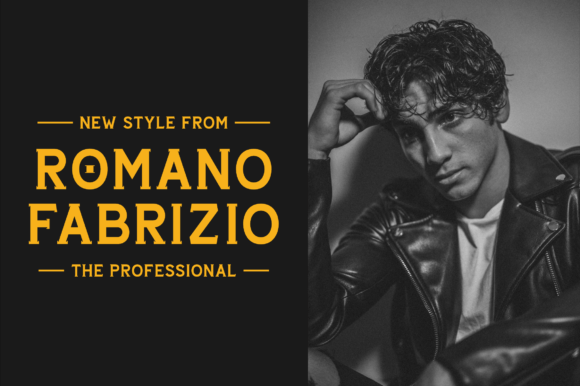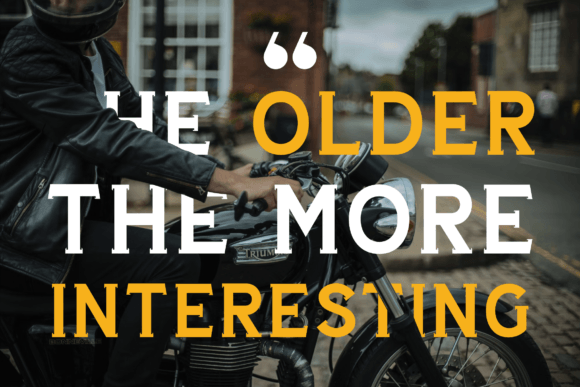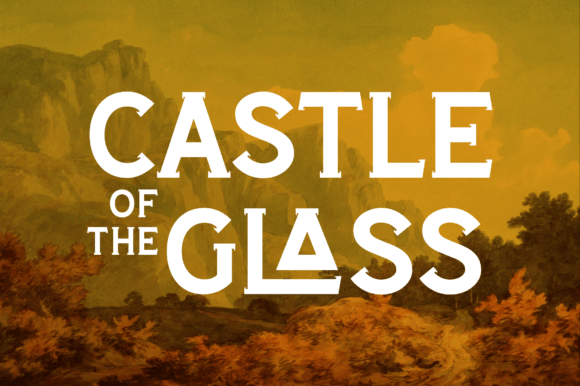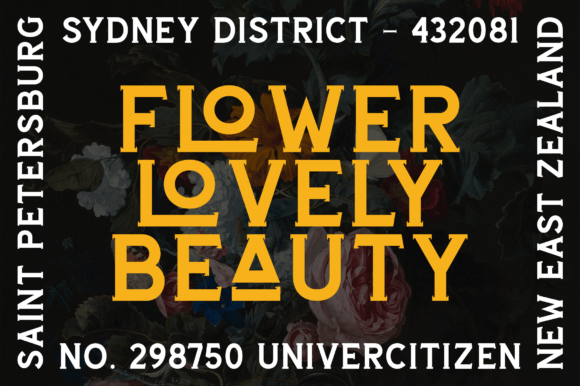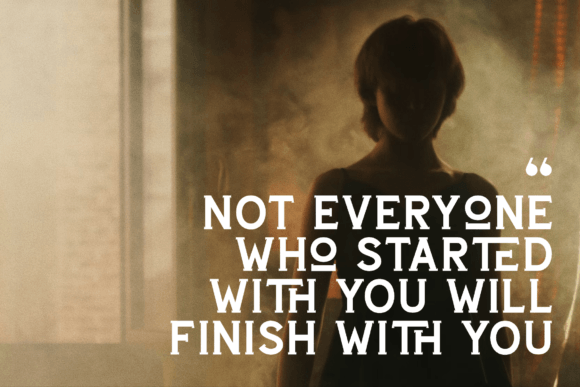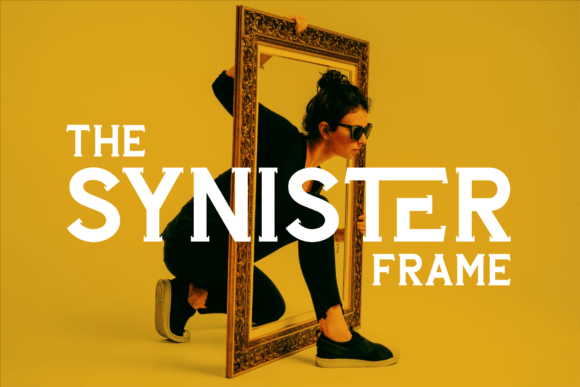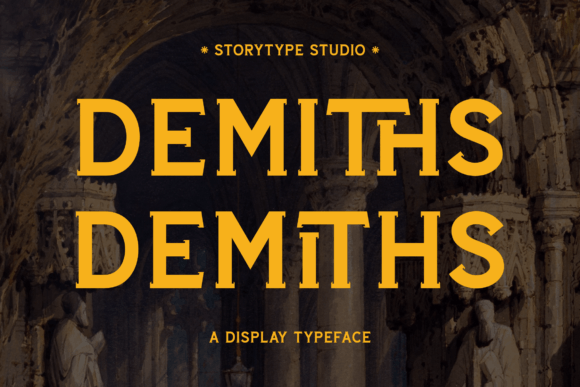
Introducing Demiths Font: The Epitome of Elegance and Sophistication
In the realm of typography, a font can make or break the visual identity of a brand, product, or creative project. For those seeking a typeface that exudes elegance, luxury, and timeless sophistication, look no further than Demiths Font. This modern and classic serif font boasts a unique style that is sure to elevate any design, from logos and titles to fashion branding, magazines, and beyond.
The Characteristics of Demiths Font
Demiths Font is distinguished by its classic serif design, which lends an air of tradition and refinement to any project. Its modern twist, however, ensures that it remains fresh and relevant in today’s fast-paced design landscape. The font’s unique style is characterized by:
• Classic Serif Structure: Demiths features a traditional serif design, complete with subtle flair and finesse, making it perfect for projects that demand a touch of sophistication.
• Modern Sensibility: Despite its classic roots, Demiths boasts a modern sensibility that ensures it will stand out in a crowded design landscape.
• Unique Style: What sets Demiths apart is its singular style, which manages to be both elegant and distinctive, making it an excellent choice for those looking to create a lasting impression.
Applications of Demiths Font
The versatility of Demiths Font is one of its most compelling attributes. Its elegant and luxurious feel makes it suitable for a wide range of applications, including:
• Elegant Logos: Create a lasting impression with a logo that embodies sophistication and class. Demiths Font is perfect for luxury brands, high-end services, or any business aiming to convey a sense of premium quality.
• Book or Movie Title Design: Add a touch of glamour to your book or movie titles with Demiths. Its classic yet modern appeal ensures that your title will stand out on bookstands and movie screens.
• Fashion Brand: For fashion brands, Demiths offers a typographic solution that is both stylish and luxurious. Use it for branding, packaging, or advertising to convey a high-end aesthetic.
• Magazine and Editorial Design: Elevate your magazine or editorial content with Demiths. Its readability and elegance make it an excellent choice for article titles, headers, and quotes.
• Clothes and Apparel: From luxury clothing lines to bespoke accessories, Demiths can add a touch of sophistication to any apparel branding or packaging.
• Lettering and Quotes: For designers and crafters looking to create stunning lettering or typographic quotes, Demiths provides a beautiful foundation. Its unique style ensures that your work will be both visually striking and memorable.
Why Choose Demiths Font?
In a world where typography plays a crucial role in design, choosing the right font can be daunting. Here are a few reasons why Demiths stands out:
• Versatility: Its wide range of applications makes Demiths a valuable addition to any designer’s toolkit.
• Elegance: For projects that demand a touch of luxury and sophistication, Demiths delivers.
• Uniqueness: In a sea of fonts, Demiths’ singular style ensures that your design will stand out.
Demiths Font is more than just a typeface; it’s a design statement. Its blend of classic elegance and modern sophistication makes it an invaluable resource for designers and crafters looking to imbue their projects with a sense of luxury and refinement. Whether you’re creating an elegant logo, designing a fashion brand, or crafting beautiful lettering, Demiths is sure to exceed your expectations. With its versatility, elegance, and unique style, Demiths Font is poised to become a go-to choice for designers seeking to create visually stunning and impactful work.